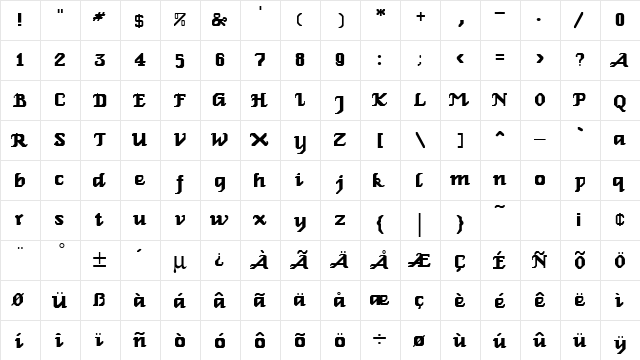
Relbe Regular
Design Context for Relbe Typeface
Relbe is a composed and adaptable typeface that performs quietly and consistently across a wide range of design contexts.
Pro Tip: Use Relbe in both headline and body roles to test its range before committing to a single application.